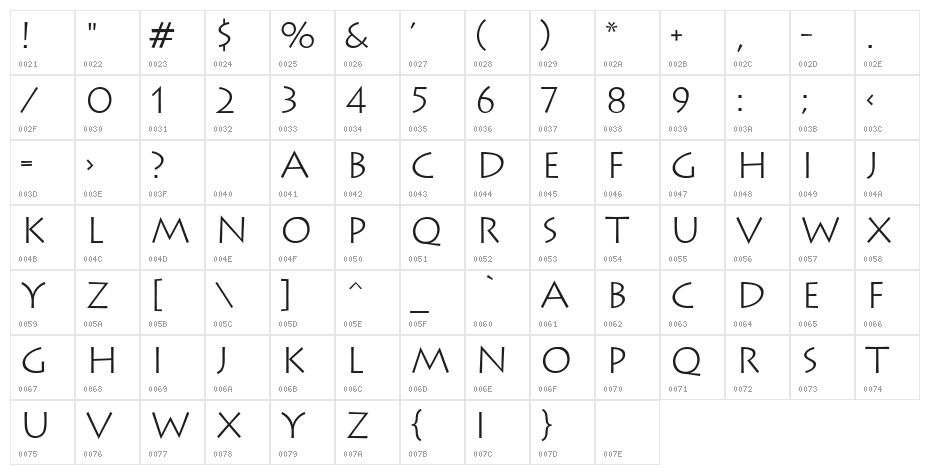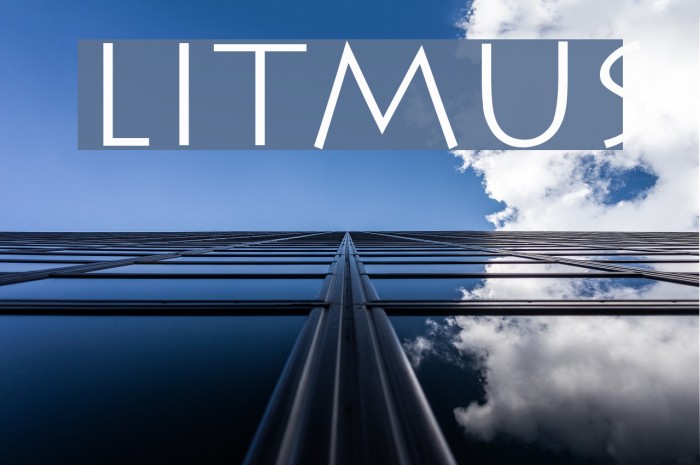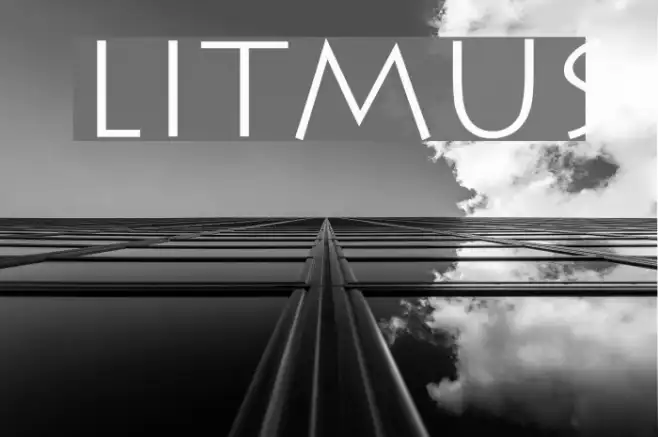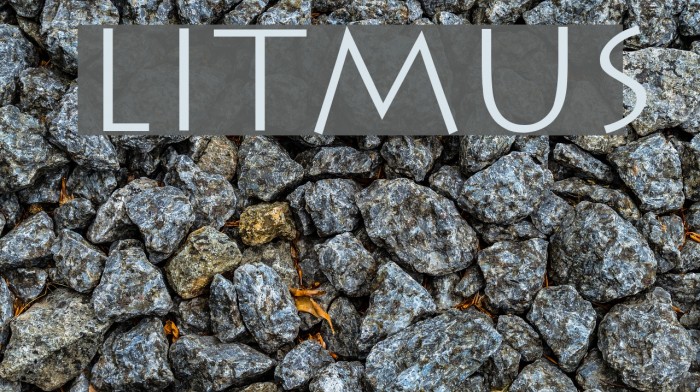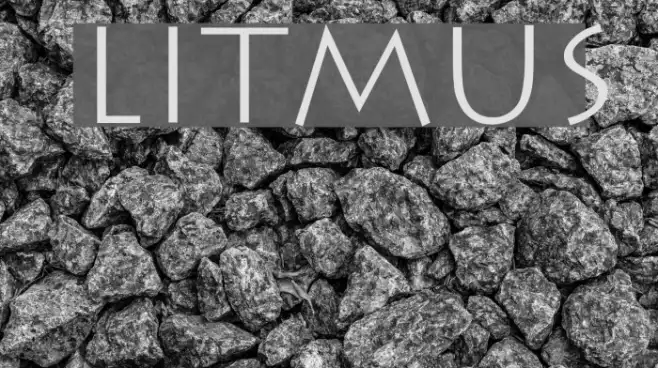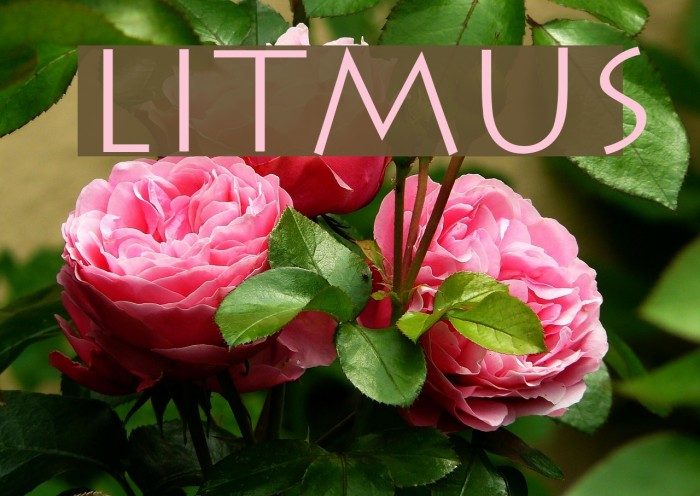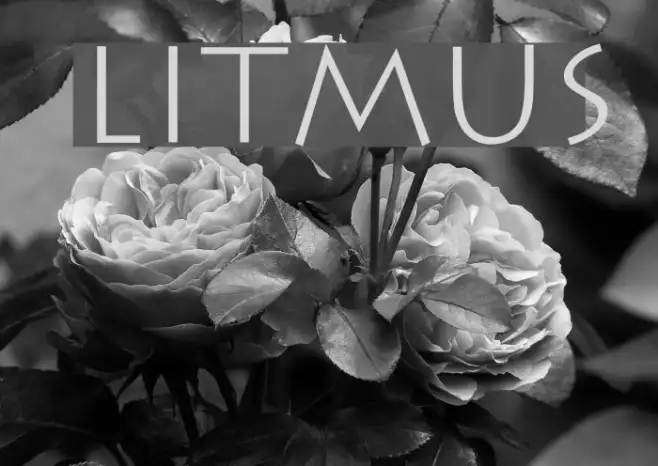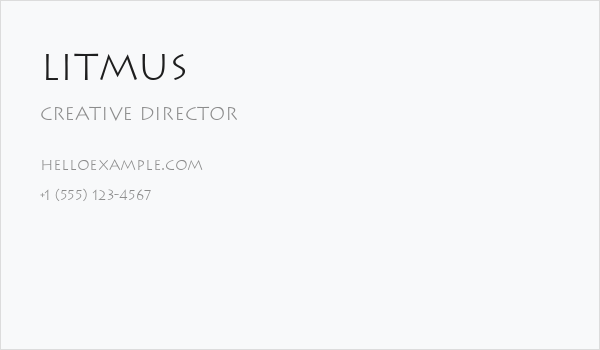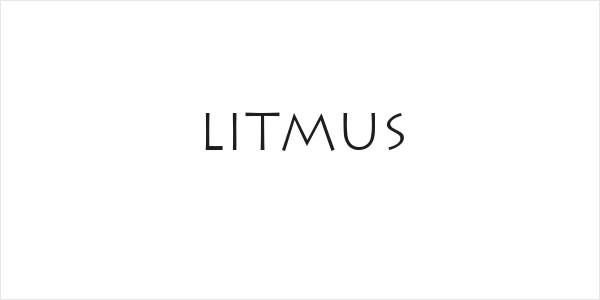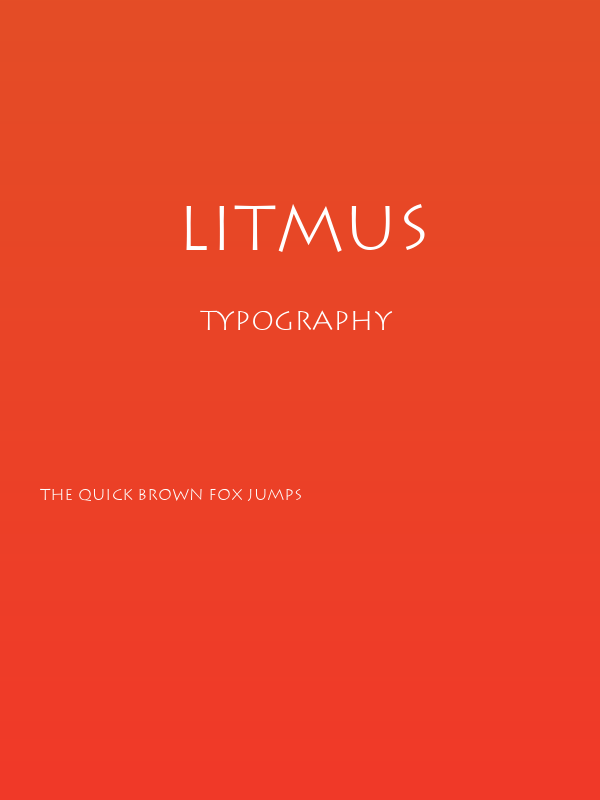
Litmus Font
Litmus Description
This font features a sleek and modern design with clean lines and a geometric structure. The uppercase letters are tall and elegant, while the lowercase letters maintain a consistent style that complements the overall aesthetic. The numerals are clear and easy to read, making them suitable for various applications. Special characters are well-designed, adding versatility to the font's use. The uniform stroke width and minimal contrast give it a contemporary feel, making it ideal for modern branding and design projects.
| Proposed Projects | Ideal for branding, modern web design, advertising, and editorial layouts. |